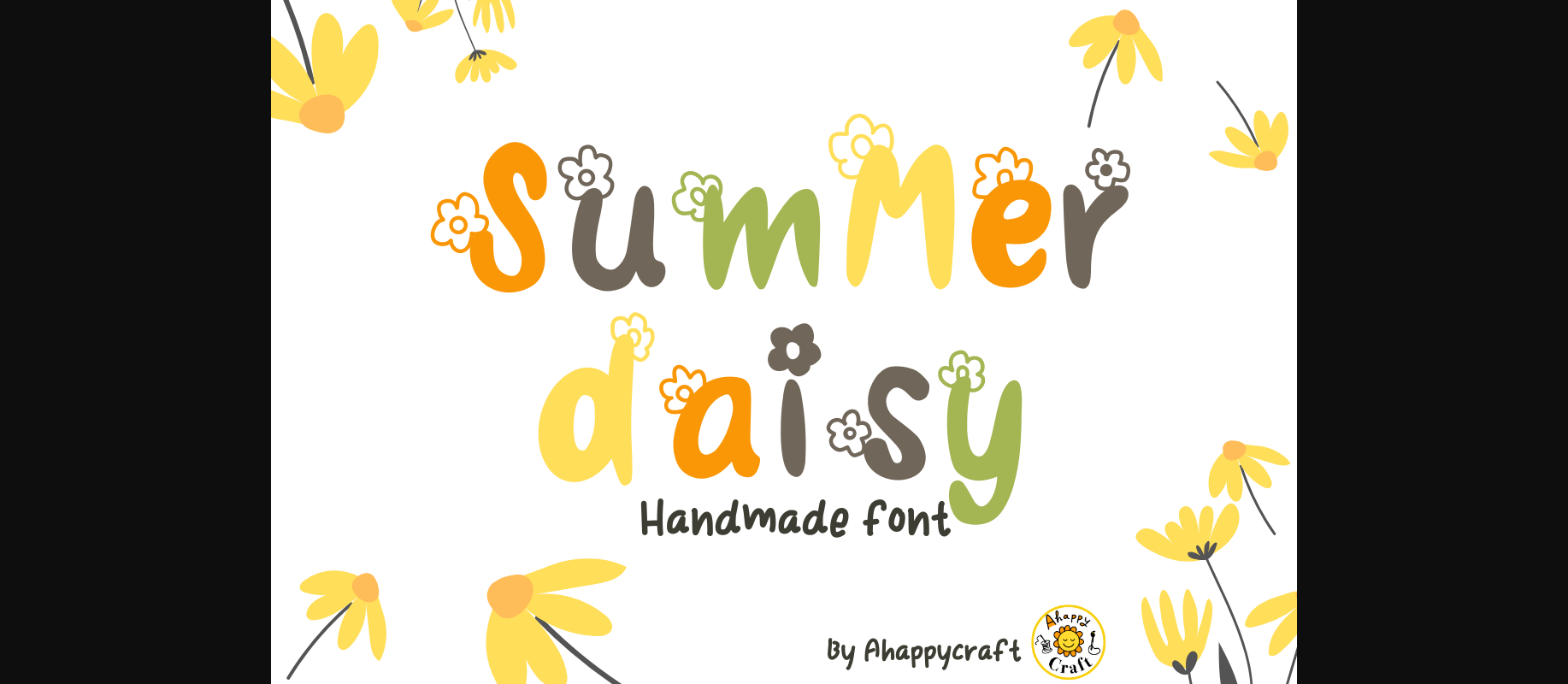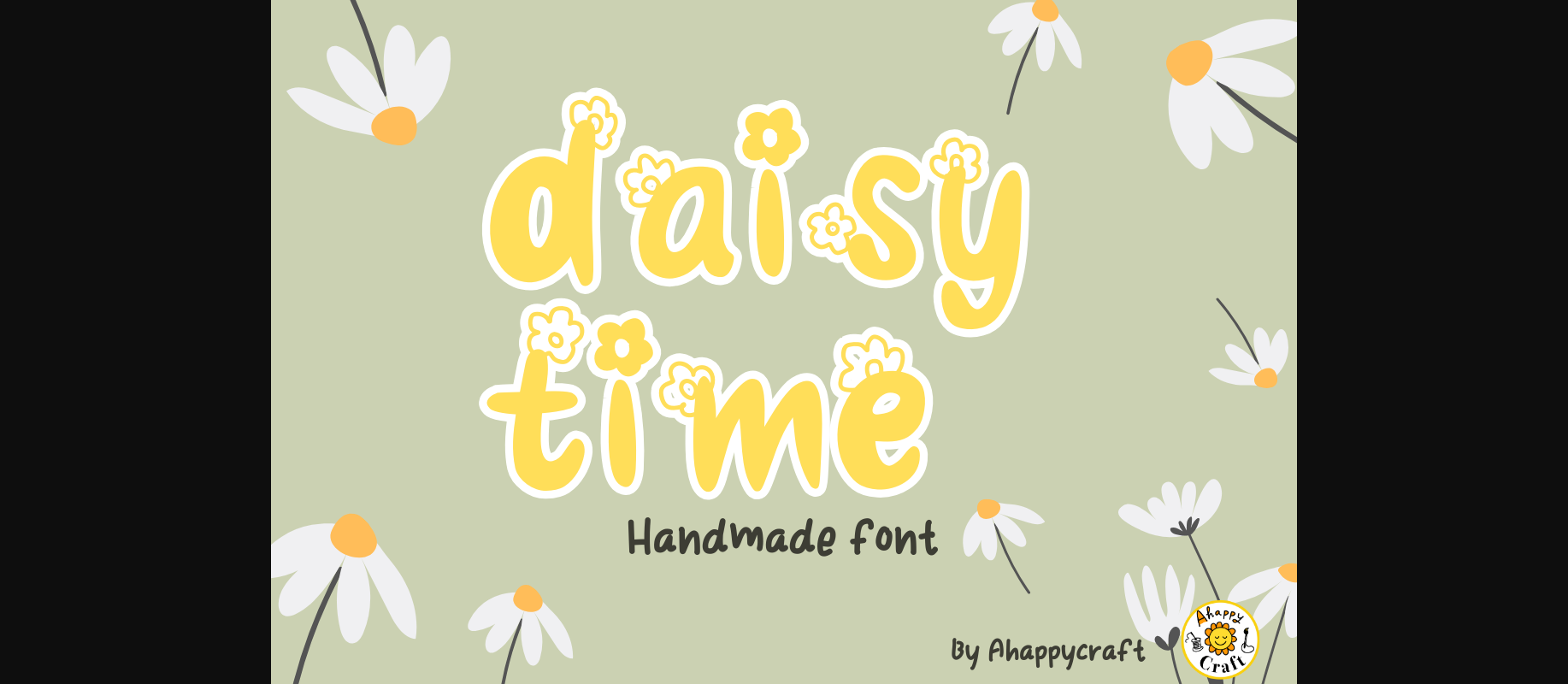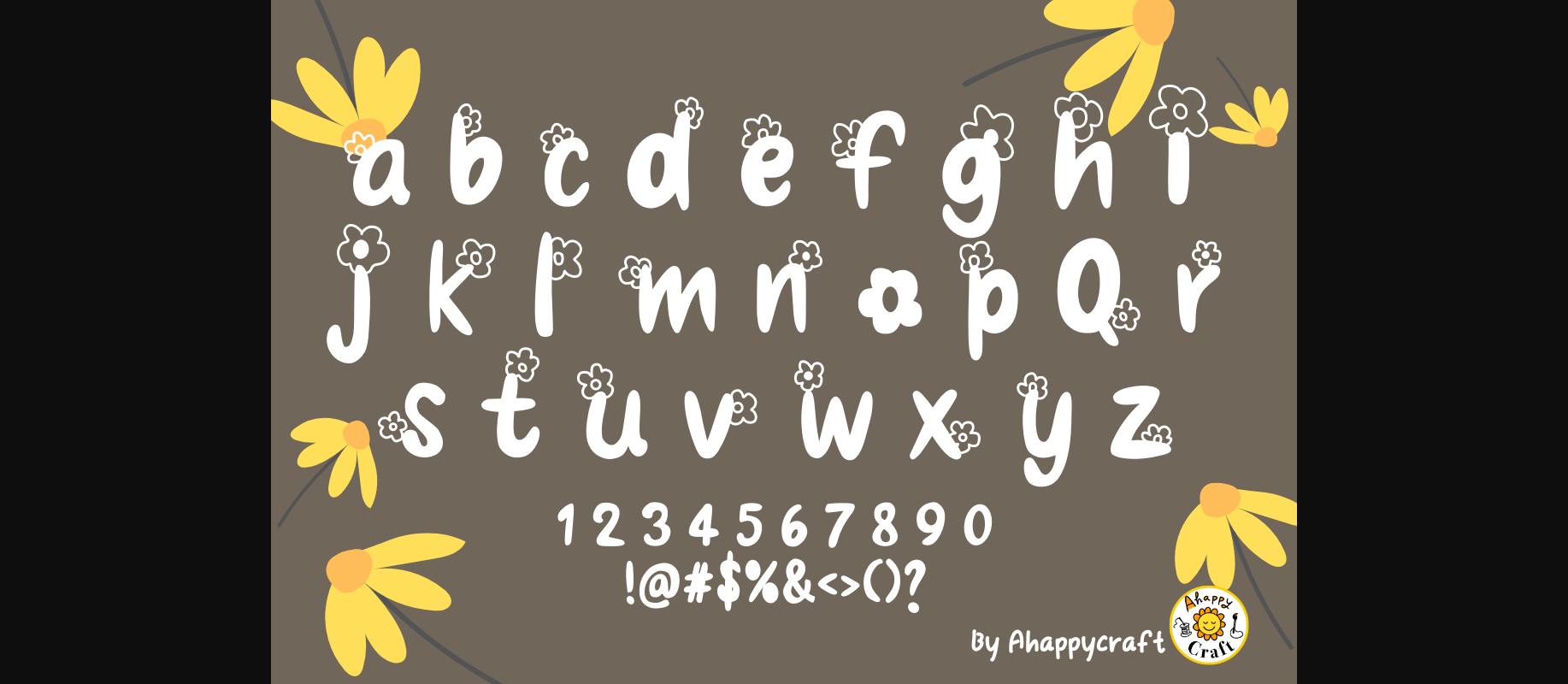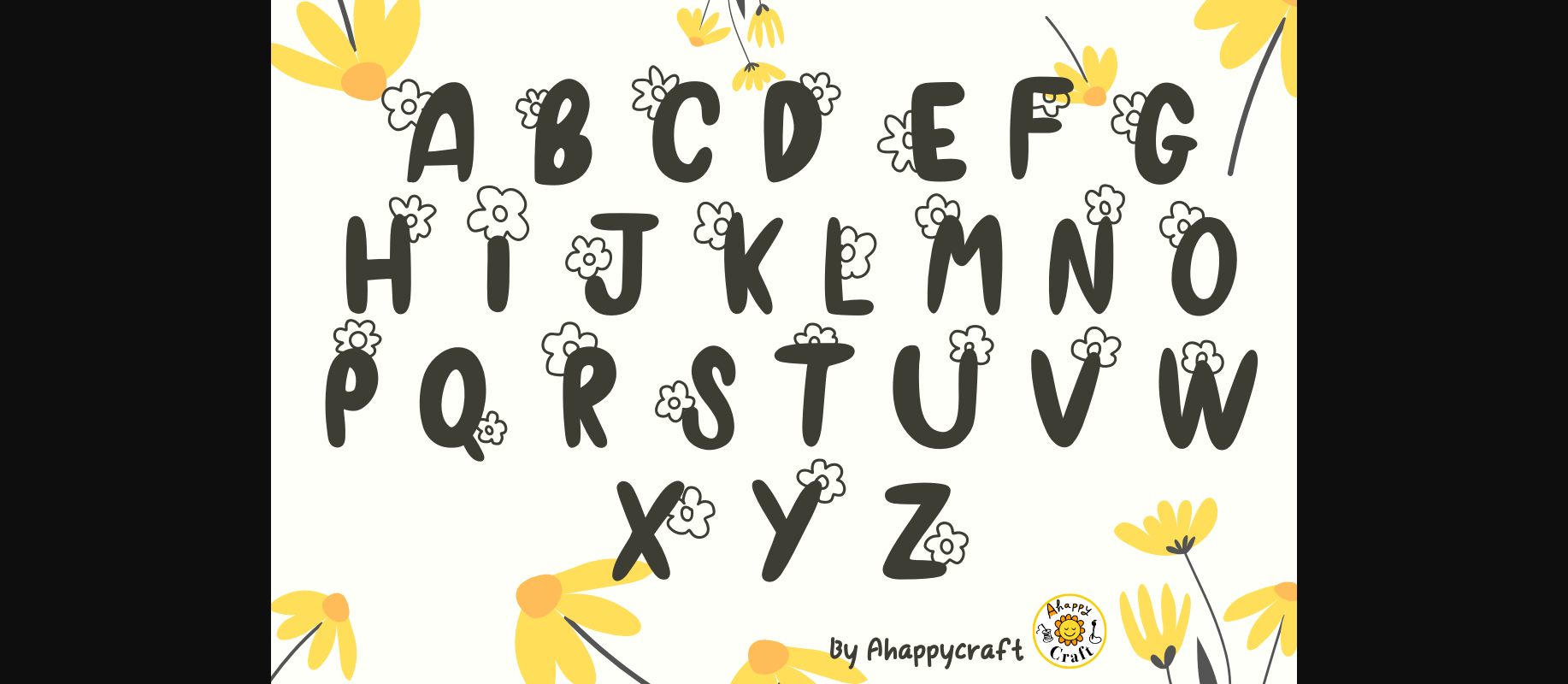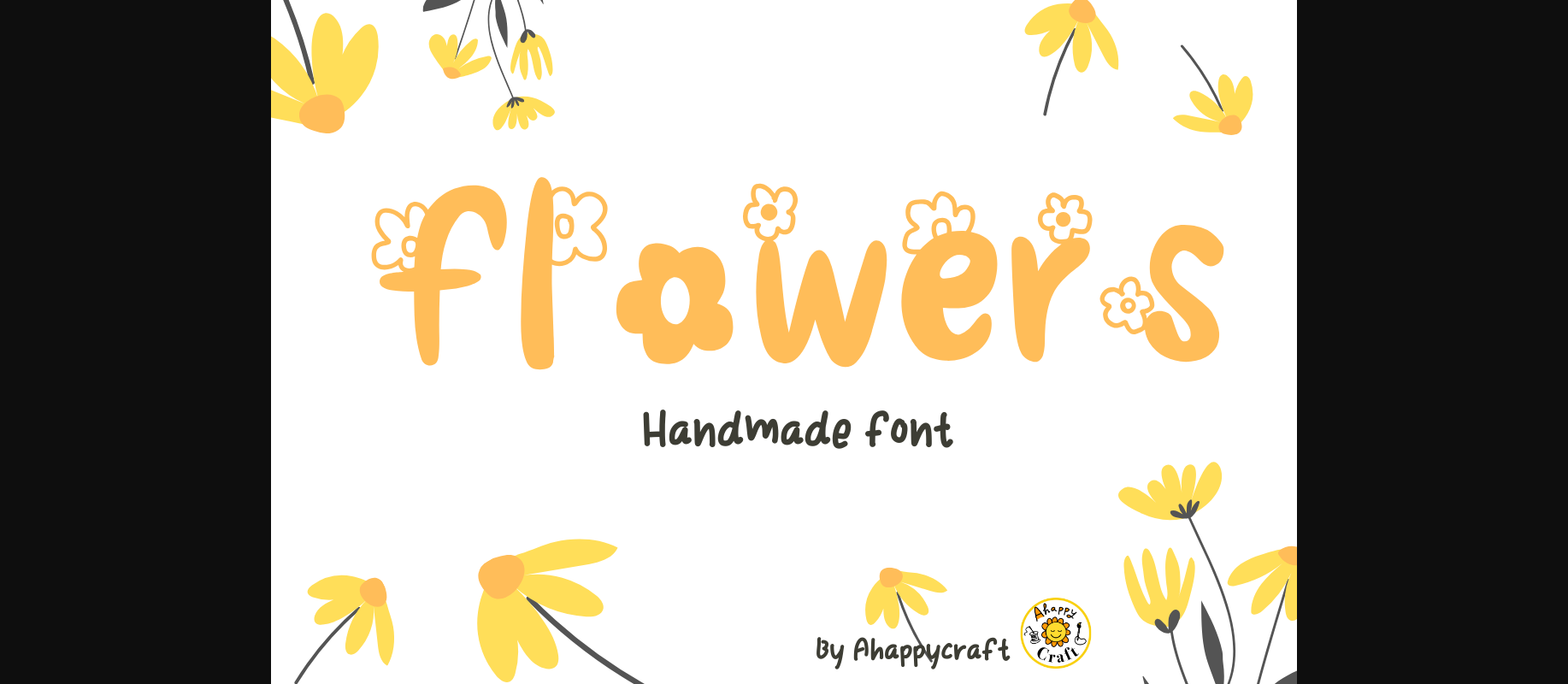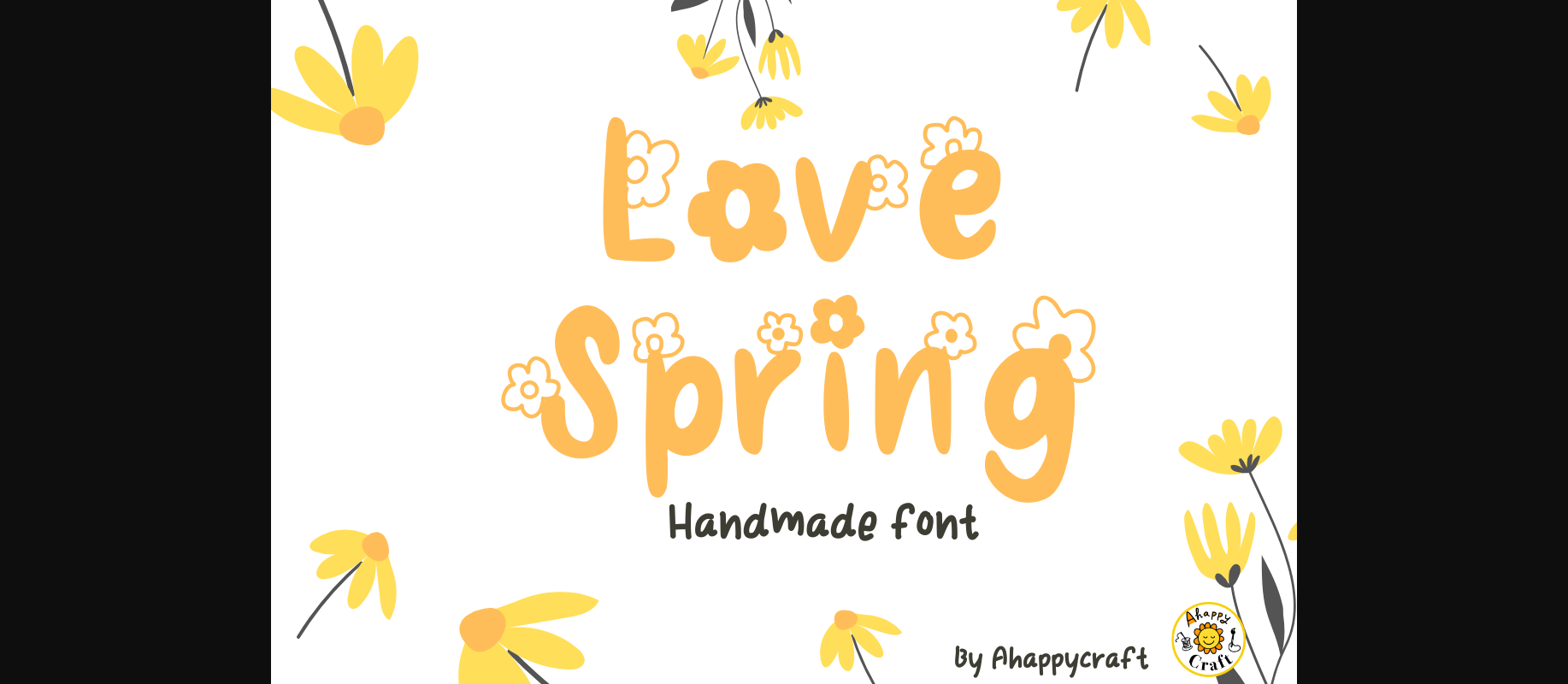
Summer Daisy Font
About Summer Daisy Font
Summer Daisy is a lovely and timeless decorative font. It is the best choice for creating eye catching logos, branding and quotes. Every letter has a unique and beautiful touch, which will make your design come alive!